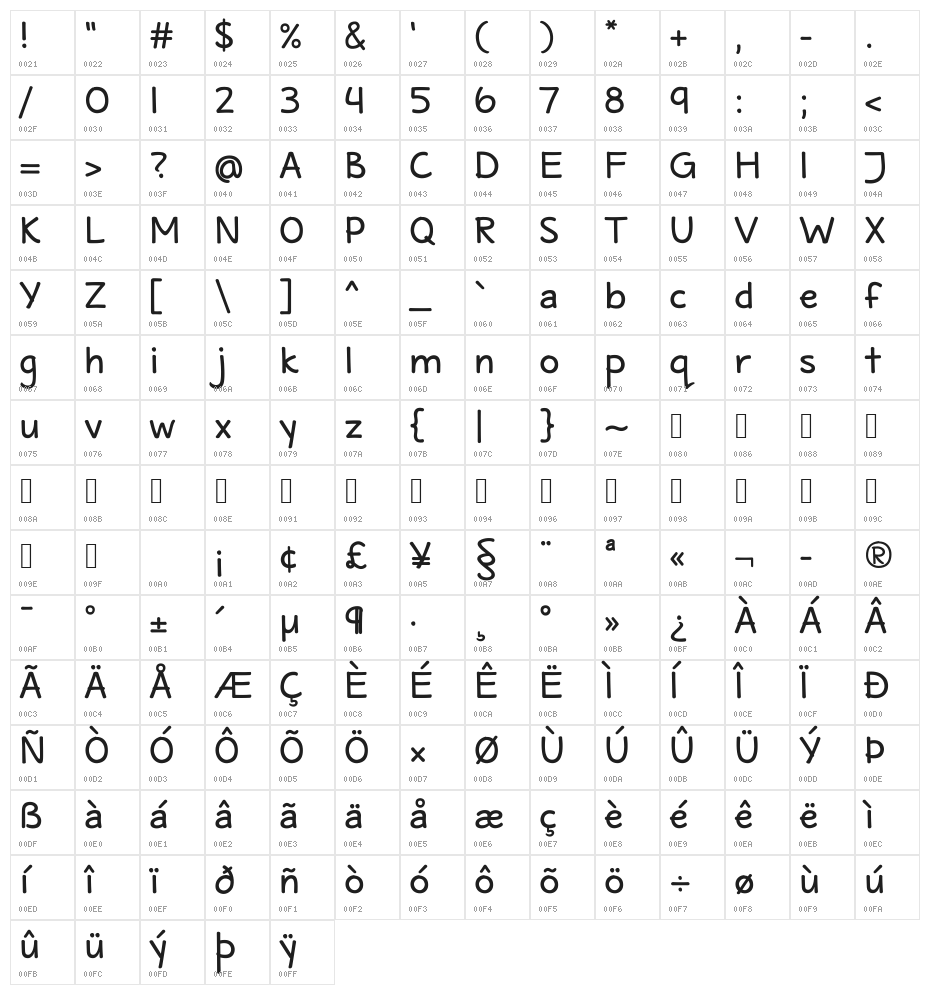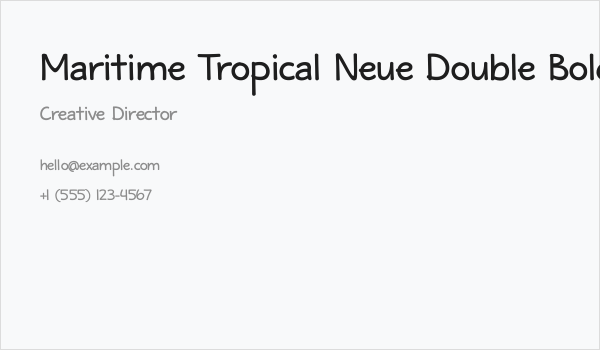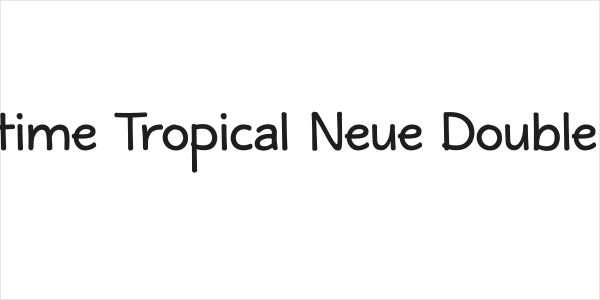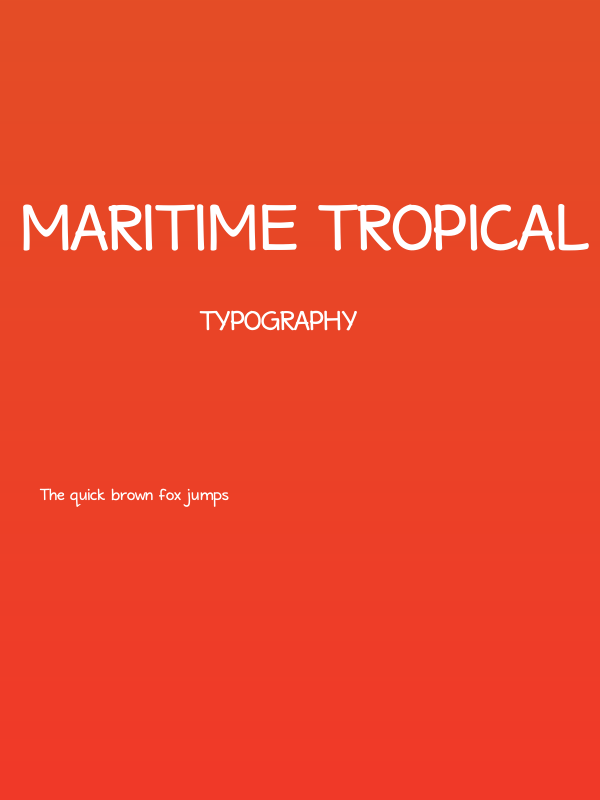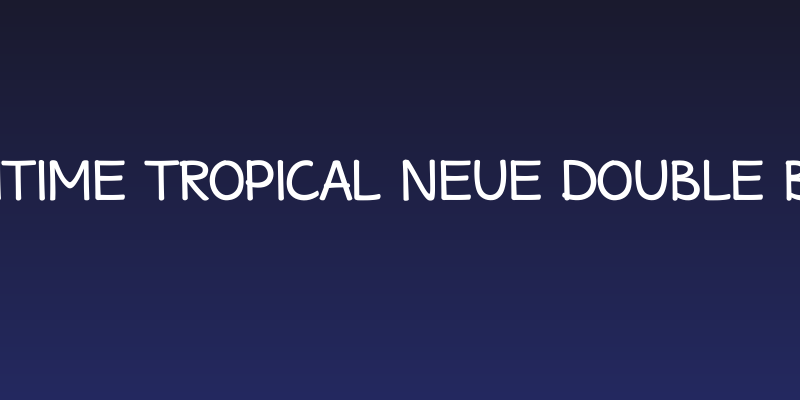
Maritime Tropical Neue Double Bold Font
Maritime Tropical Neue Double Bold Description
This font features a playful and rounded design, characterized by its smooth curves and consistent stroke width. The letters are evenly spaced, creating a harmonious and approachable appearance. The uppercase and lowercase characters maintain a uniform style, with rounded edges that give a friendly and modern feel. The numerals are clear and easy to read, matching the overall aesthetic of the alphabet. Special characters are included, maintaining the same rounded and approachable design. This font is versatile, suitable for both digital and print media, and can be used to convey a sense of warmth and friendliness.
Proposed ProjectsIdeal for children's books, casual branding, playful posters, and friendly web design.